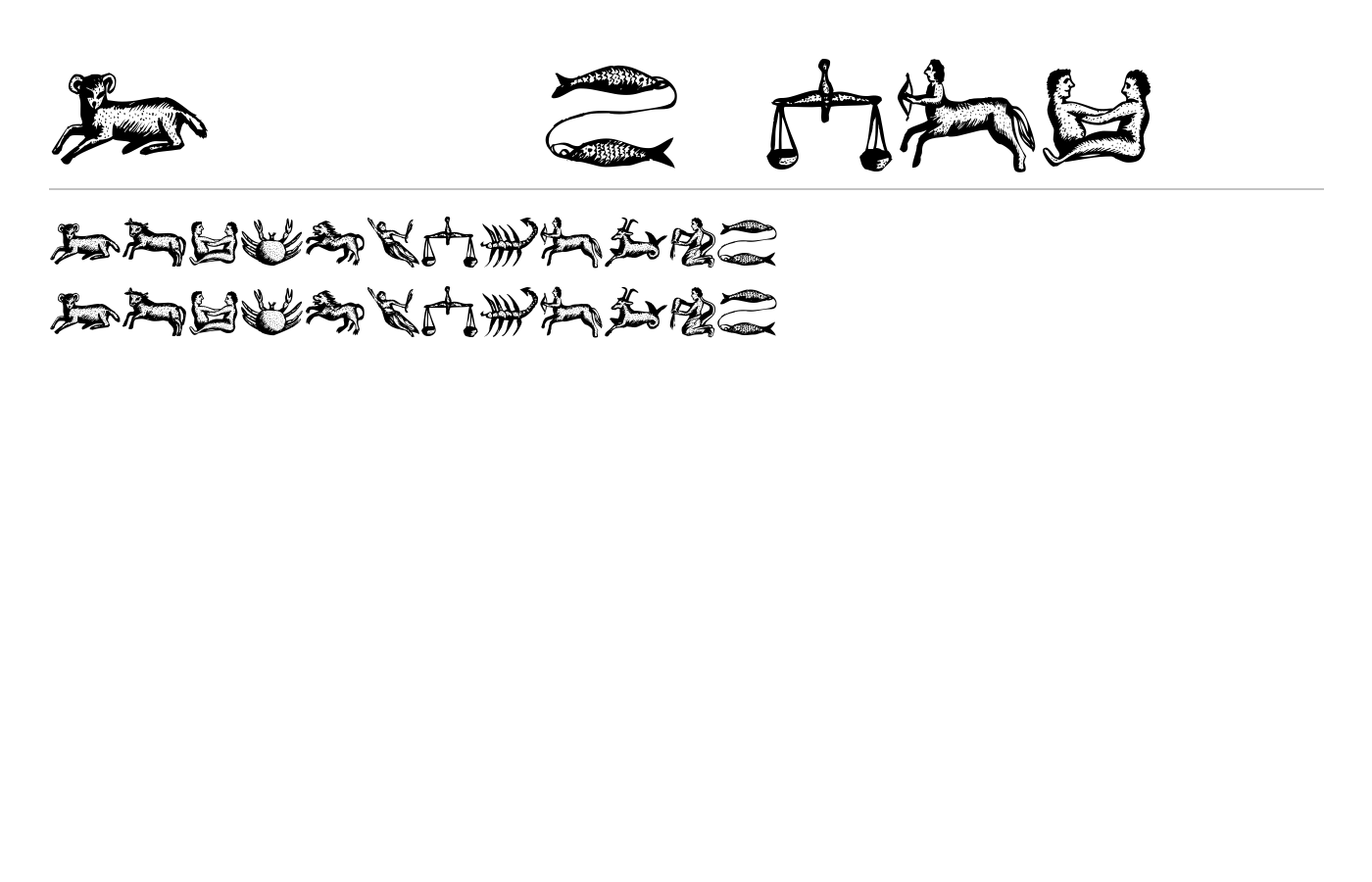
Astrologicus is a decorative symbol font featuring detailed, vintage-style illustrations of zodiac signs. With its intricate and classic engraved look, this font adds an elegant, mystical charm perfect for astrology-related designs, spiritual branding, or vintage-inspired projects. It works best in headlines, logos, and thematic packaging where symbolic detail is key.
Astrologicus Font
About Astrologicus Font